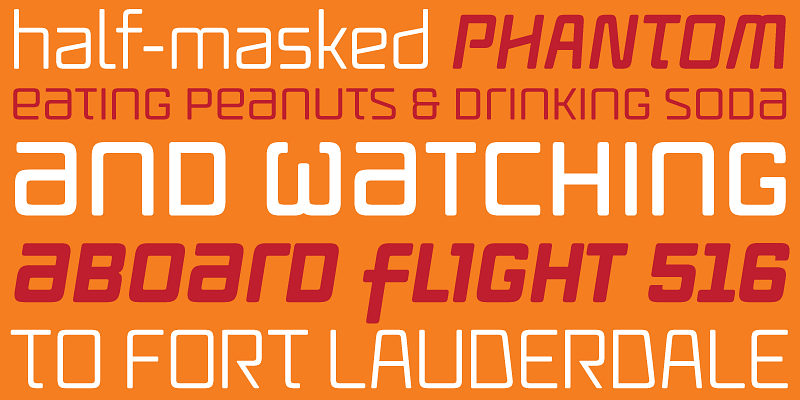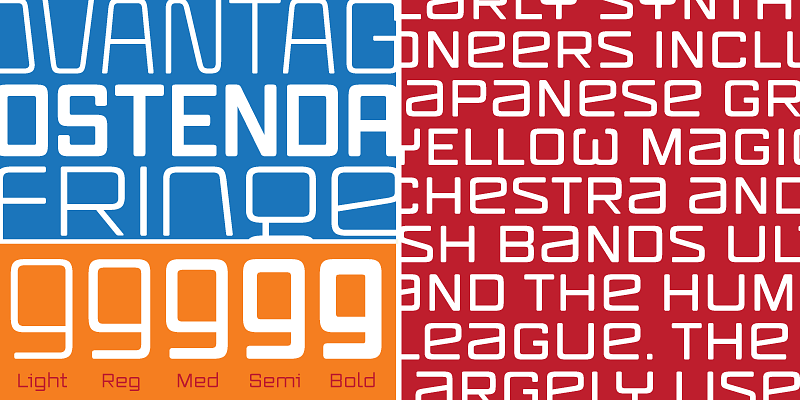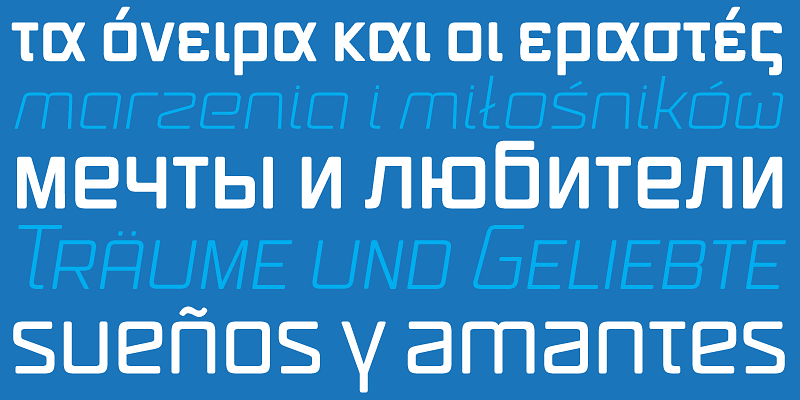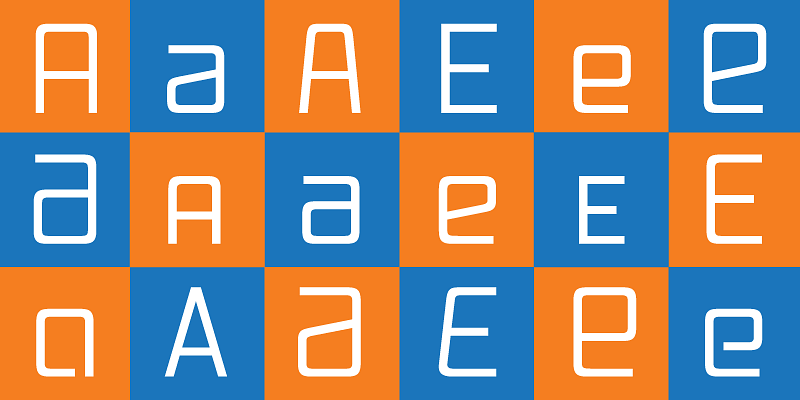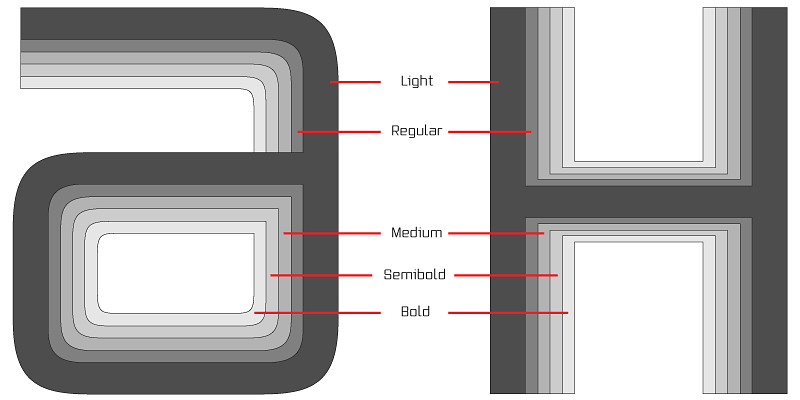
The brief for Vox was an extensive monoline typeface that can be both precise and friendly, yet offer enough choice of interchangeable variants to accommodate completely transforming the face’s personality depending on the application.